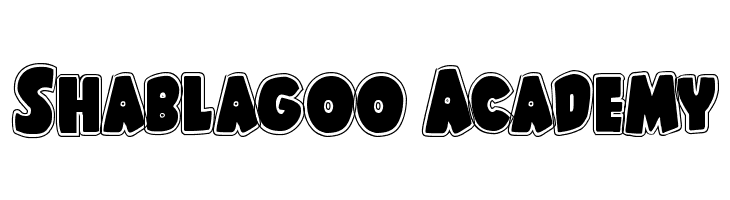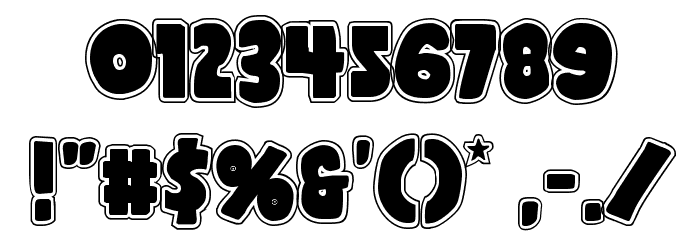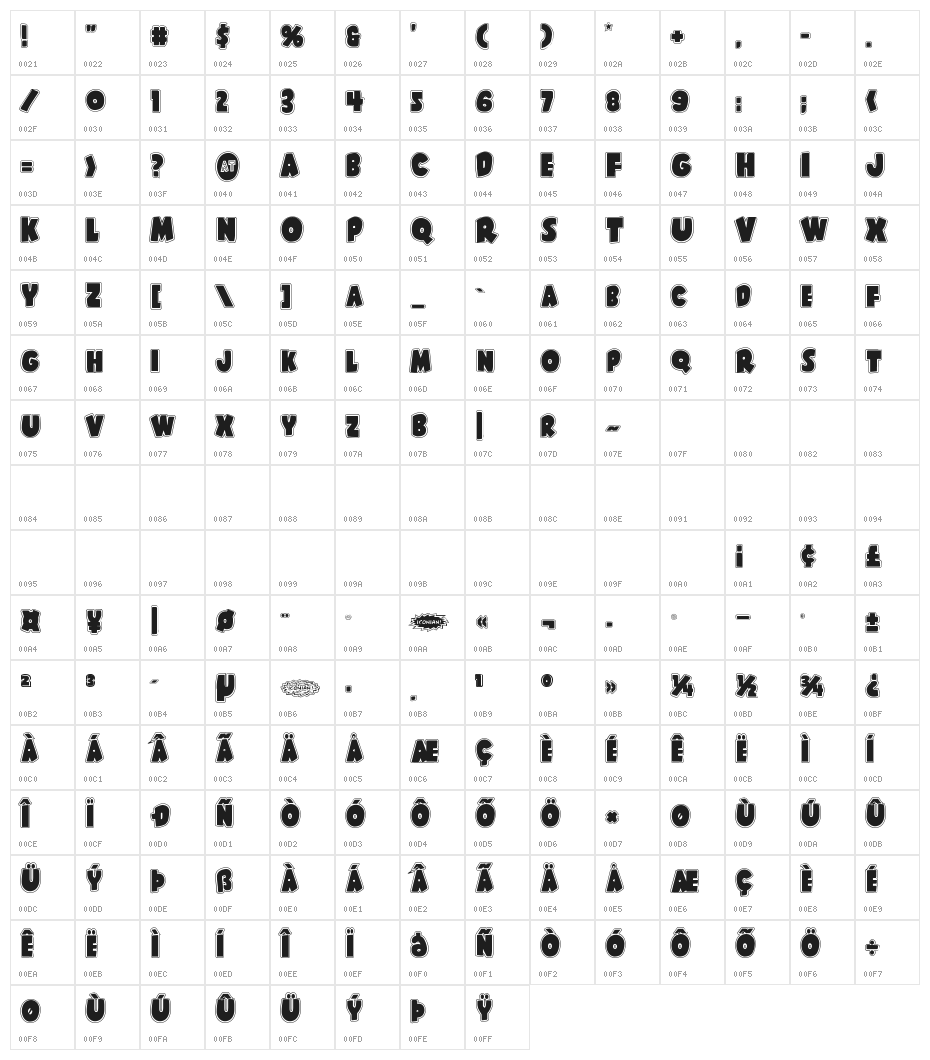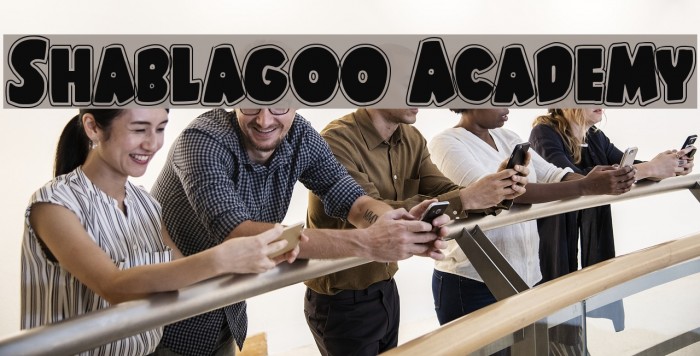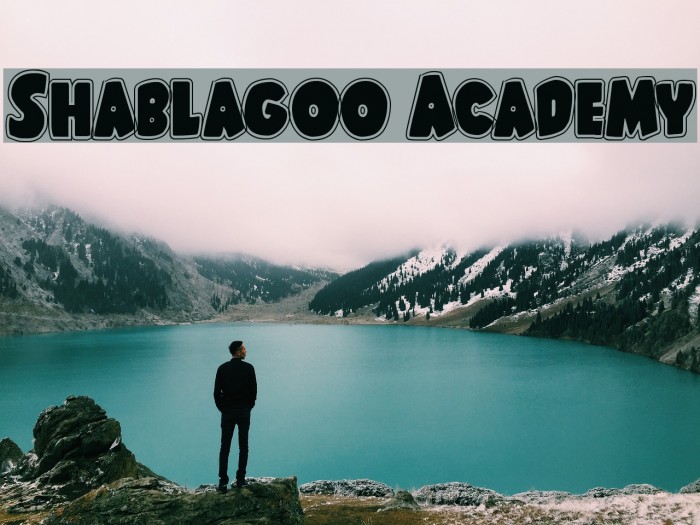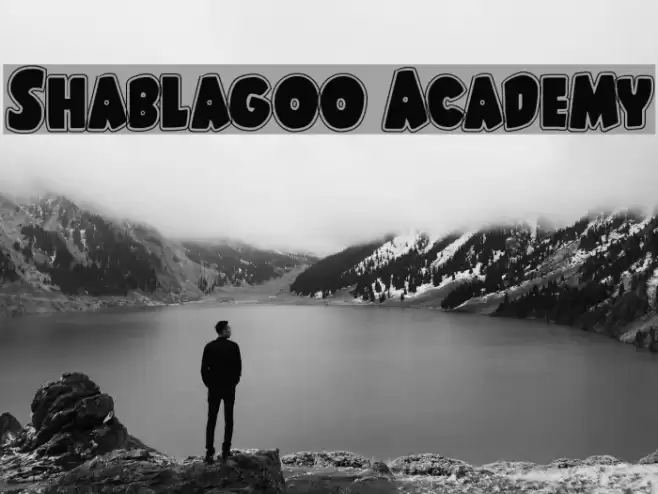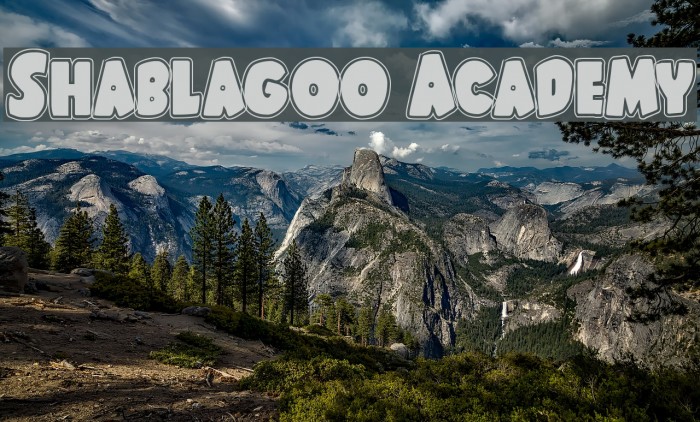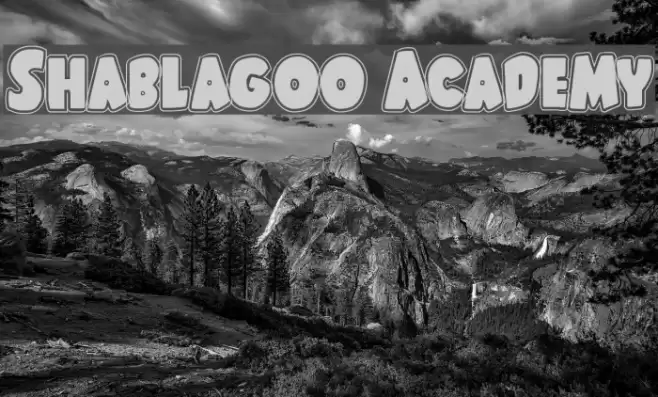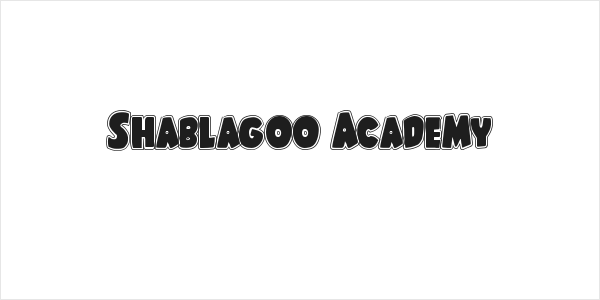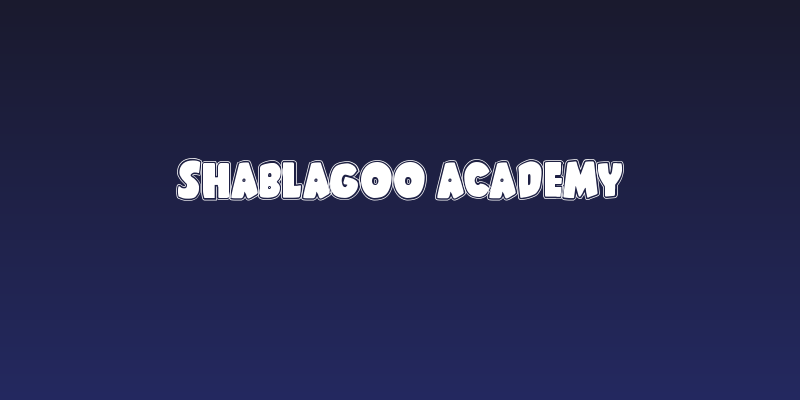
Shablagoo Academy Font
Shablagoo Academy Description
This font features bold, playful characters with a thick outline that gives it a cartoonish and fun appearance. The letters are rounded and slightly inflated, creating a sense of whimsy and energy. The uppercase and lowercase letters maintain a consistent style, with the numbers and special characters following suit. The font's design is eye-catching and ideal for projects that require a lively and engaging typeface. Its boldness ensures visibility and impact, making it suitable for various creative applications.
Overall StylePlayful, Cartoonish
Proposed ProjectsIdeal for children's books, comic strips, playful branding, posters, and party invitations.